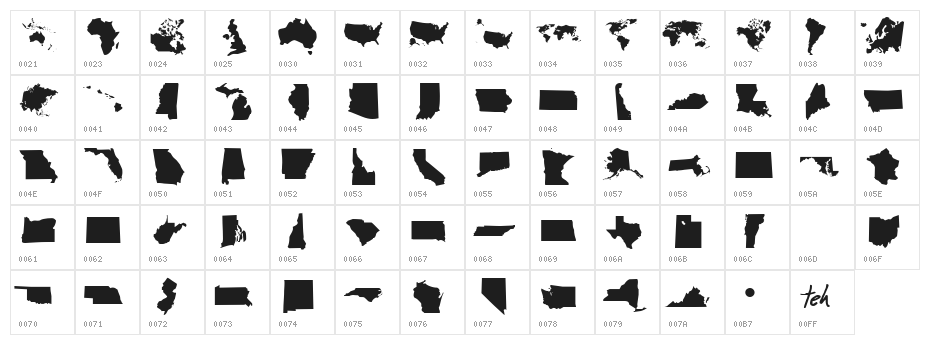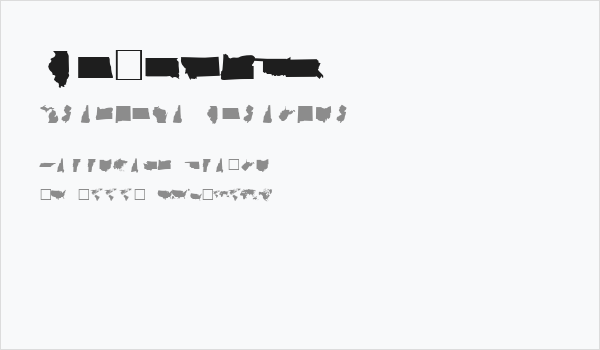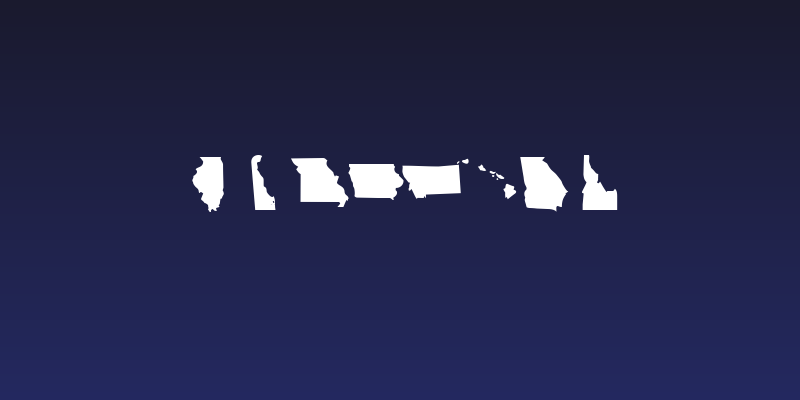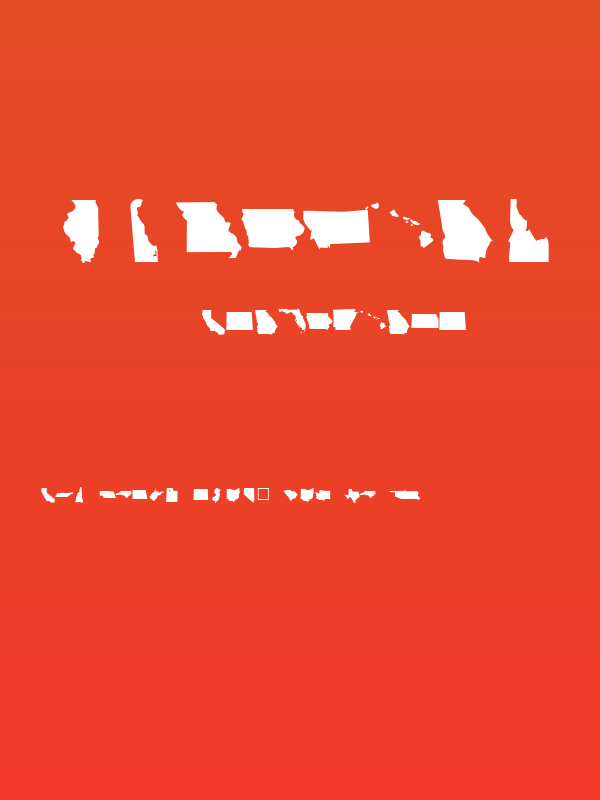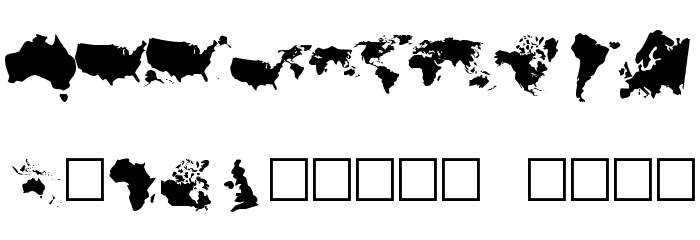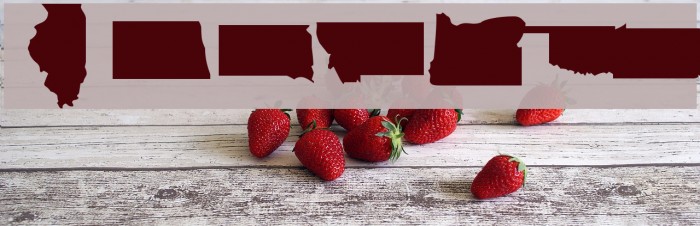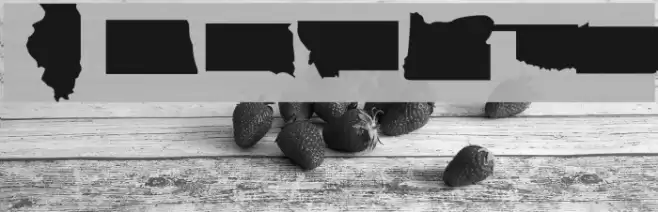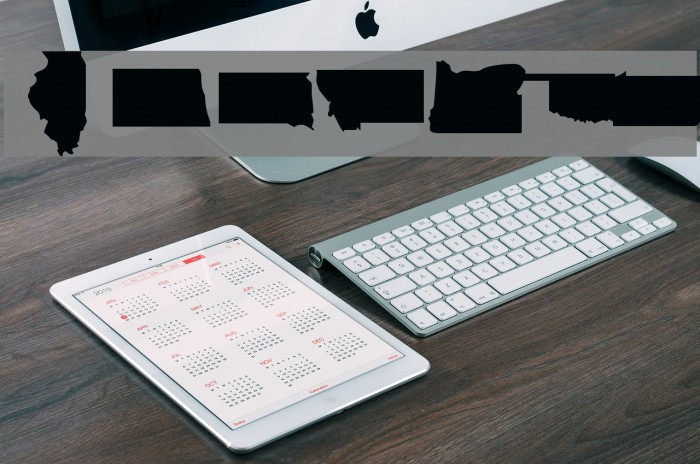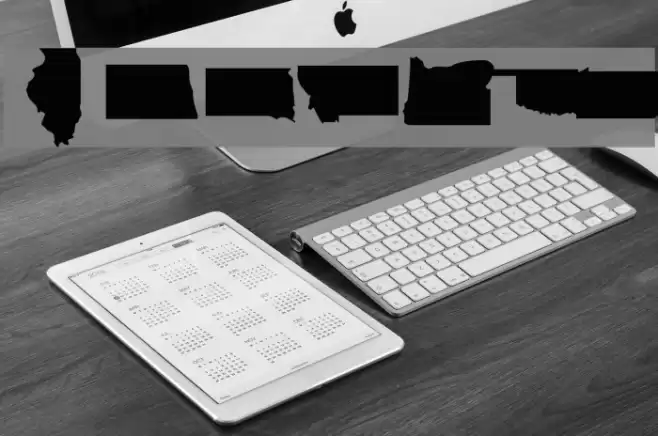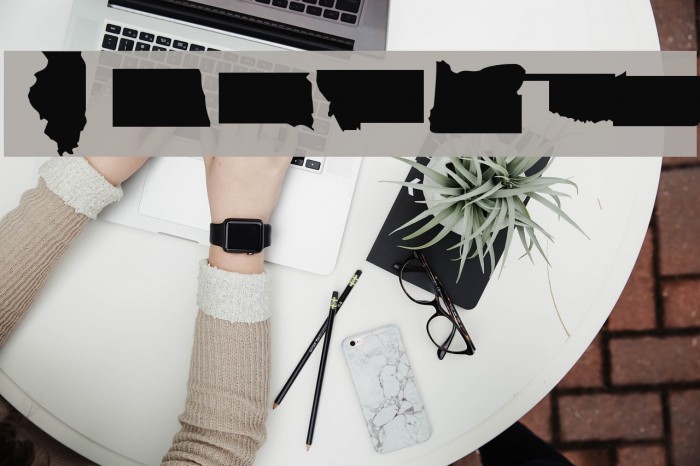
DingMaps Font
DingMaps Description
A decorative dingbat font featuring solid black silhouettes of U.S. states, world continents, and some countries, presented in a consistent, high-contrast style. Each glyph is a simplified, easily recognizable map outline, with even stroke weight and no additional ornamentation.
| Overall Style | Decorative, Modern |
| Use Case | Icons, Infographics, Educational tools, Display purposes |
| Proposed Projects | Educational materials, geography games, infographics, travel brochures, map-themed posters, and visual aids. |